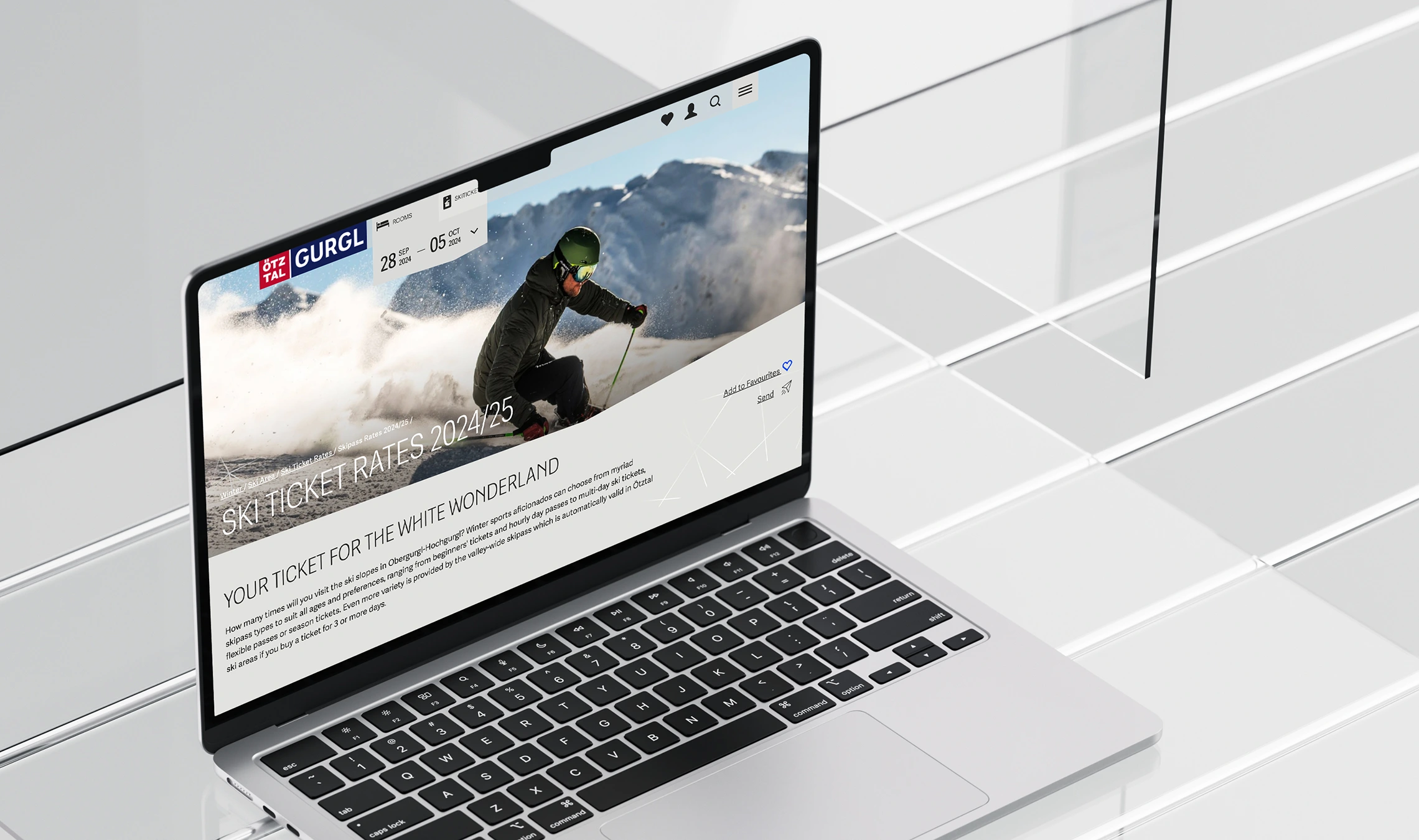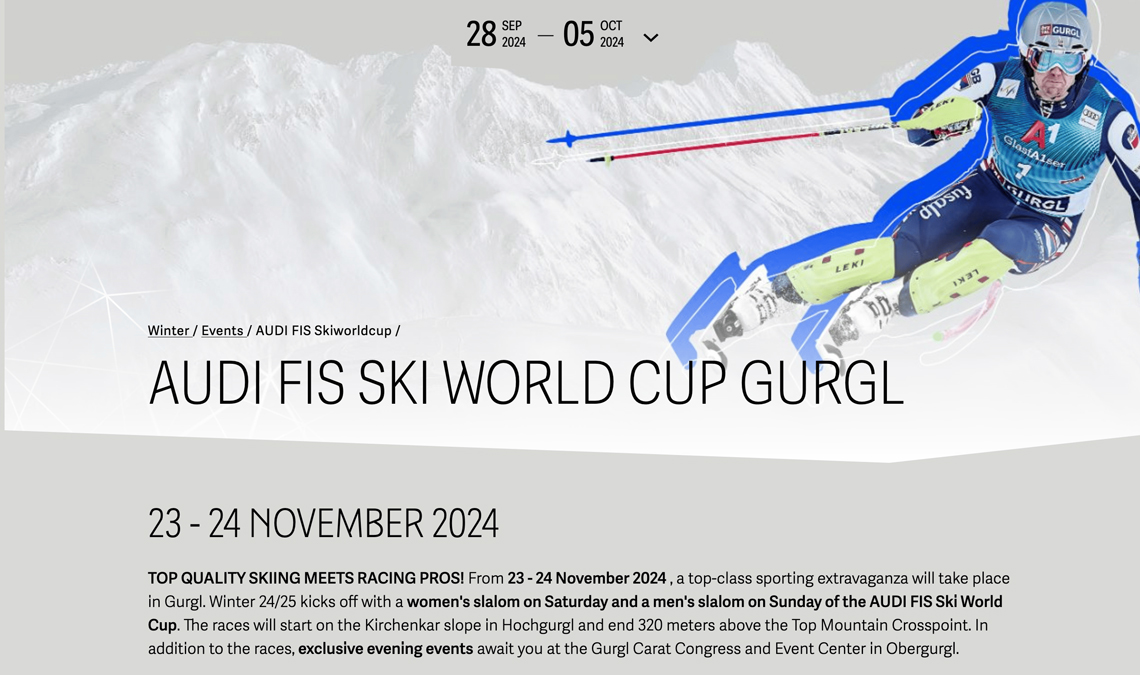
Adelle Sans Gurgl Headline
As with the Sölden project, the Austrian-based design agency Norden, commissioned TypeTogether to modify one of our fonts to fit their concept for the exclusive ski area of the Austrian Tyrol Alps on over 2000 m, called Gurgl. With its blend of adventure, natural beauty, and tranquility, the Gurgl area is a premier destination for both winter sports enthusiasts and summer hikers in the Austrian Alps.
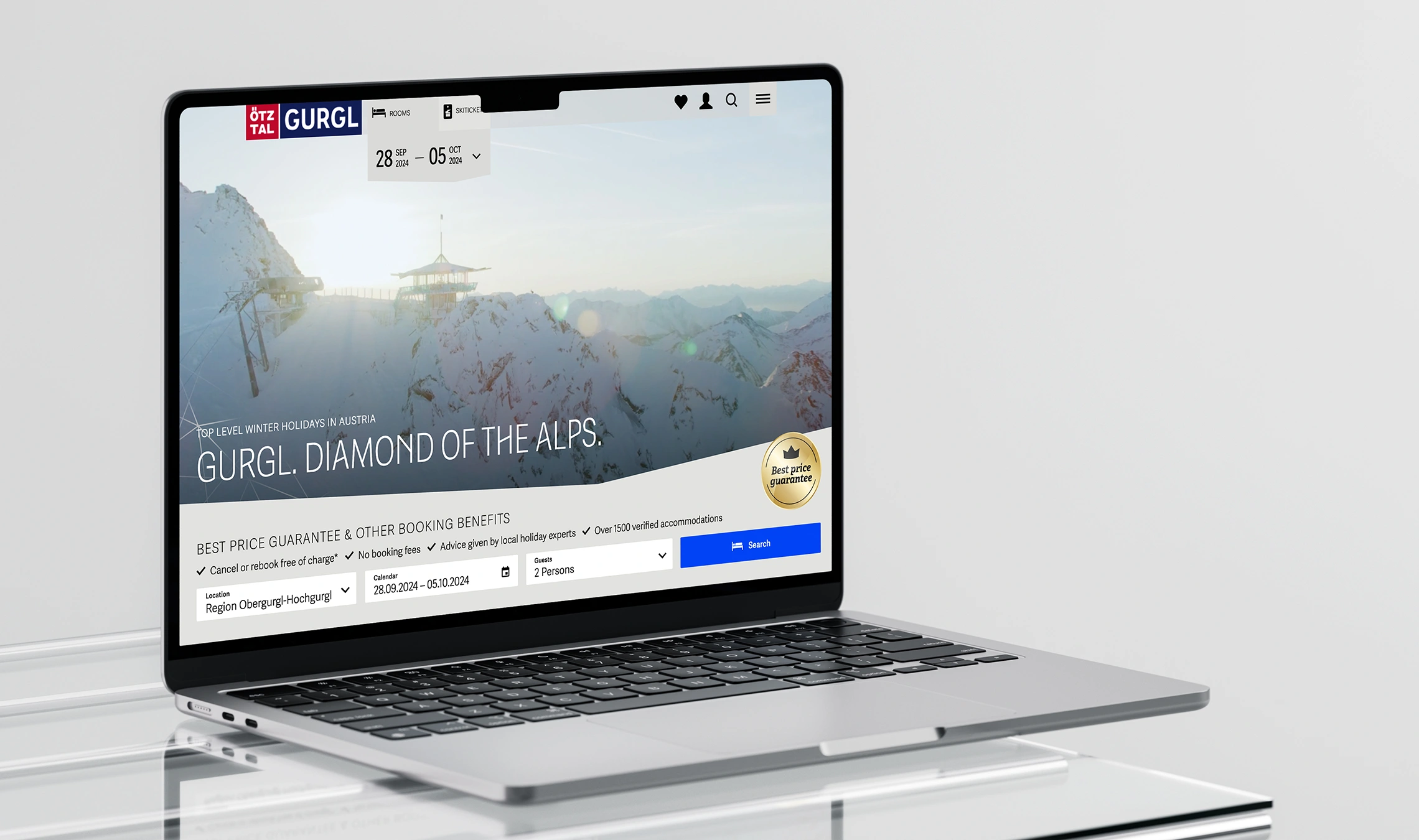
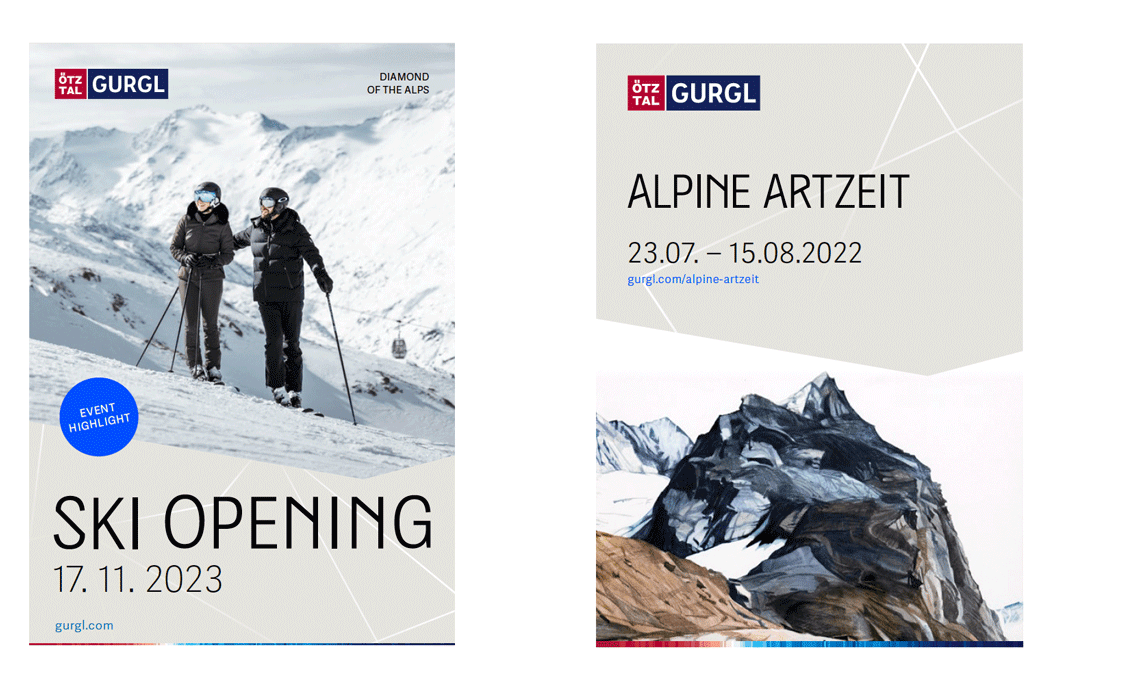
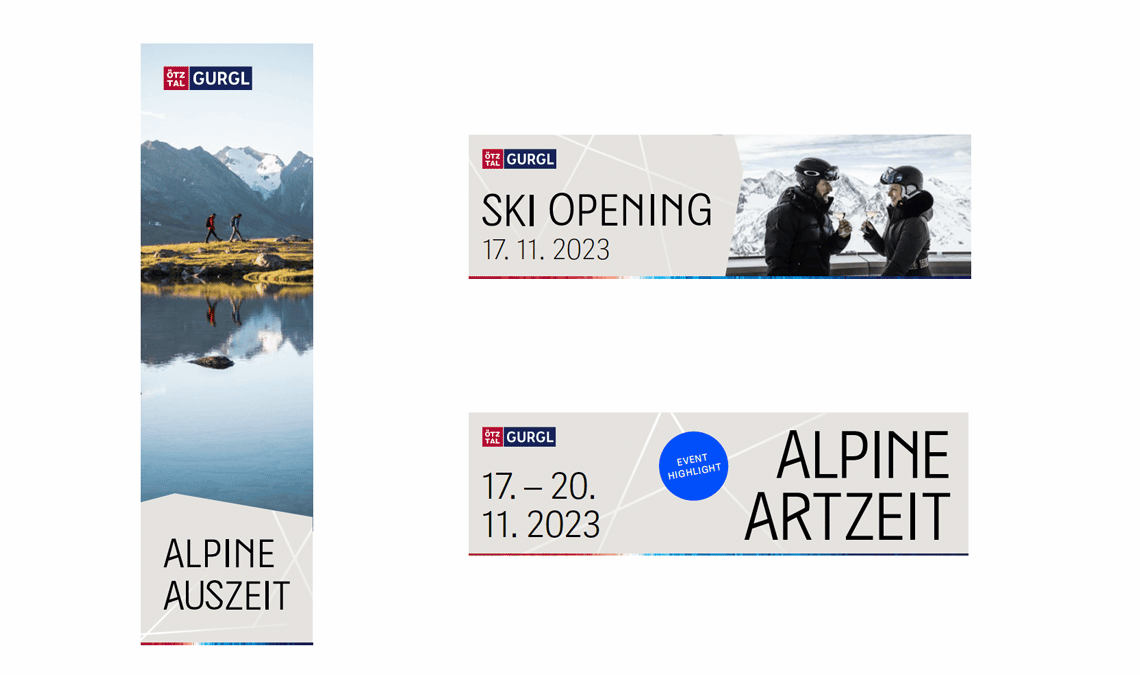design features
Norden chose Adelle Sans Condensed as basis for the modification and suggested the direction the design should take. The typeface should convey a sense of sophistication, elegance, and distinction, reflecting the exclusive, high-quality essence of the updated Gurgl brand. Located in the upper part of the Ötztal Valley in Tyrol, it is often referred to as the “Diamond of the Alps” due to its high-altitude location and pristine natural beauty.
The renewed brand picks up on this with diamond inspired graphics and the customised headline typeface. The slants in the typography are inspired by the diagonals of the diamond element reflecting Gurgl’s special attraction. This creates an elegant and simple look, optimised for digital applications in conjunction with the diamond elements.
Gurgl
option 01
Gurgl
option 02
option 03
option 04